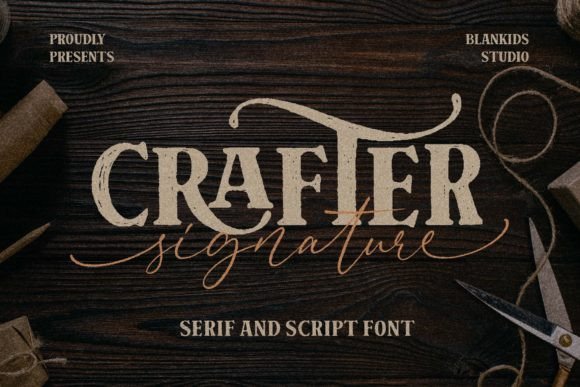
The Perfect Blend of Tradition and Whimsy: Introducing the Crafter Signature Font
Have you ever sat down with a pencil and paper, trying to capture the essence of a moment or an idea? The scratch of the pencil, the flow of the ink, and the imperfect strokes that bring your thoughts to life? That’s exactly the creative spark that inspired the Crafter Signature Font – a beautiful blend of traditional typography and expressive script handwriting.
With its natural, rough texture and harmonious balance of structured serifs and fluid script elements, the Crafter Signature Font is a versatile tool for designers looking to add a personal touch to their projects. Whether you’re designing a logo, packaging, or poster, this unique font is sure to elevate your work and make it stand out with sophistication and creativity.
By incorporating the Crafter Signature Font into your designs, you’ll be able to infuse your work with a distinctive, handcrafted feel that’s sure to resonate with your audience.
Crafter Signature Font Key Features
- Unique Characteristics: The font features a unique, handwritten style with subtle flourishes and organic feel, making it perfect for creative and artistic projects.
Crafter Signature Font Review
Overall, I found the Crafter Signature Font to be a delightful addition to any design project. The ✨ elegant script and cursive styles work well for creating a sense of sophistication and professionalism, making it perfect for wedding invitations, event promotions, and even personal branding.
Some of the strengths of this font include:
- ✨ Beautifully designed script and cursive styles
- ✨ Highly legible, making it suitable for a wide range of font sizes
- ✨ Suitable for both print and digital applications
However, I did encounter a few limitations:
- ⚠️ Limited font styles, with only a few variations available
- ⚠️ Not ideal for bold, headline text due to its cursive nature
- ⚠️ May not be suitable for body text due to its decorative style
Overall, I would recommend the Crafter Signature Font for designers looking to add a touch of elegance to their projects. While it may have some limitations, its unique style and high legibility make it a valuable addition to any design toolkit.
For optimal results, use Crafter Signature Font in conjunction with bold or italic text to create visual contrast.
Experiment with different font sizes and colors to achieve a unique look.
Crafter Signature Font is ideal for:
Personal branding and logos
Stationery and invitations
Blog and social media graphics